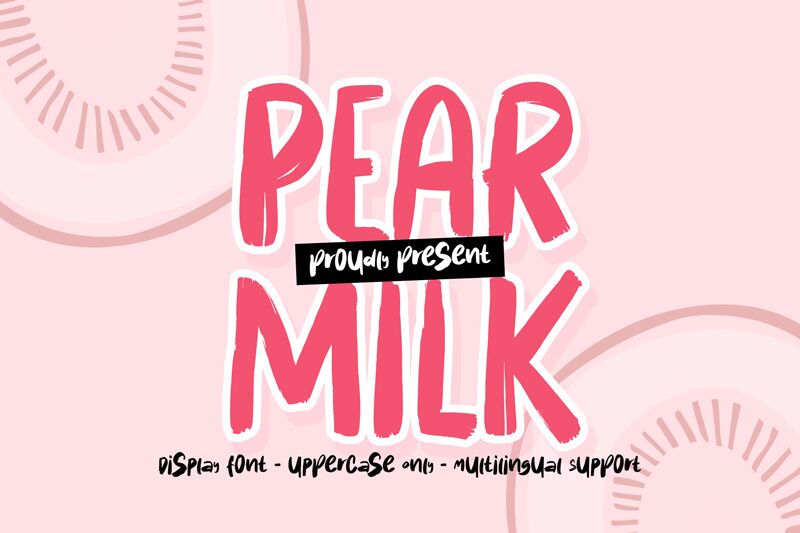
Pear Milk
Pear Milk font by DumadiStyle exudes a playful, artistic flair with its brush style, making it a captivating choice for creative projects. The hand-drawn appearance conveys warmth and individuality, ideal for designs needing a personal touch. Its unique strokes and organic feel make it perfect for branding, posters, invitations, and social media graphics.
Whether you're looking to add character to headlines or charm to promotional materials, Pear Milk stands out as a versatile option. This free font is available for download, perfect for designers seeking a distinctive typeface that captures attention with its creativity and spontaneity.